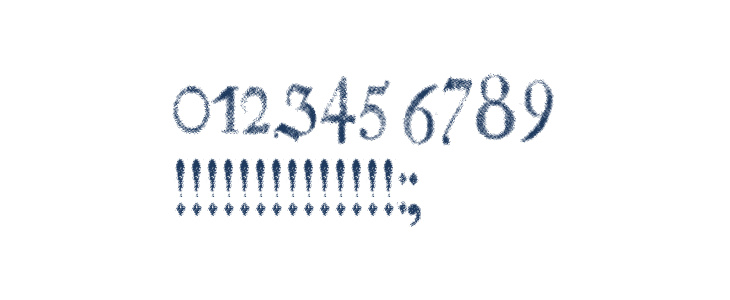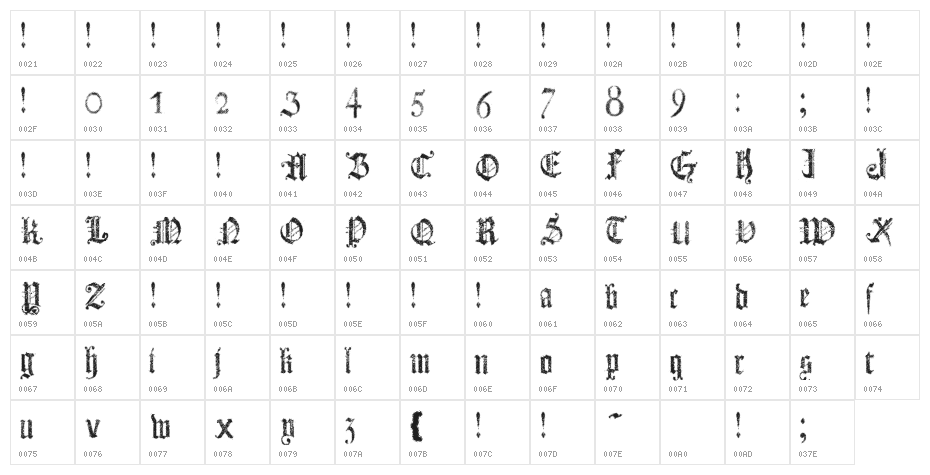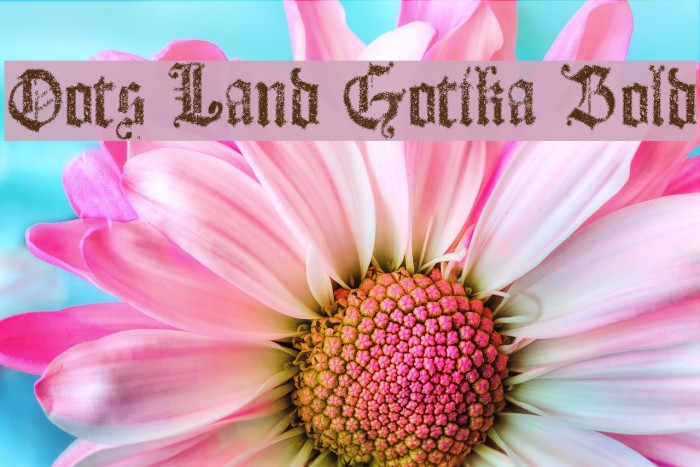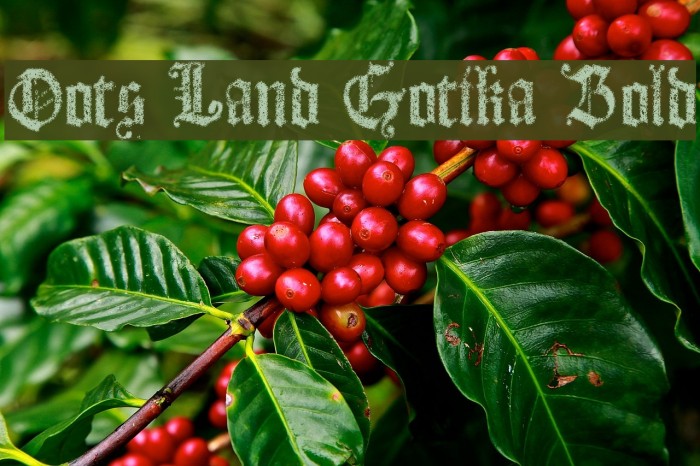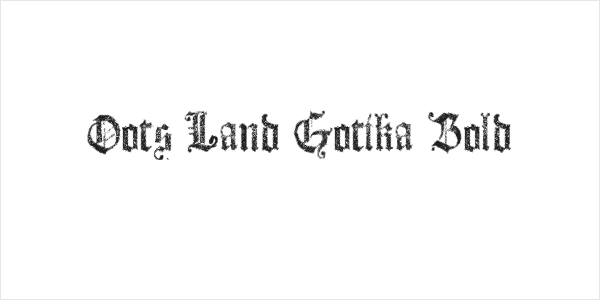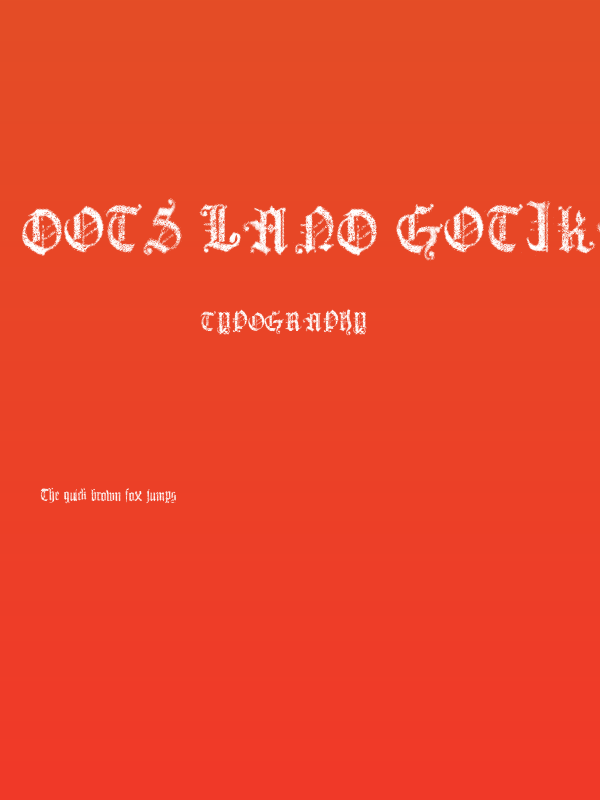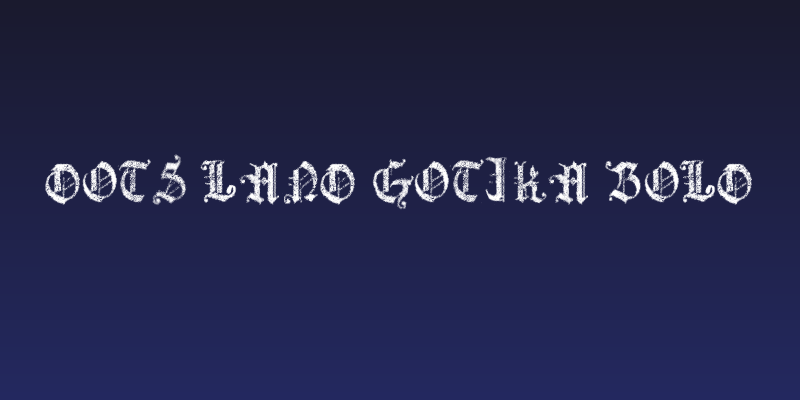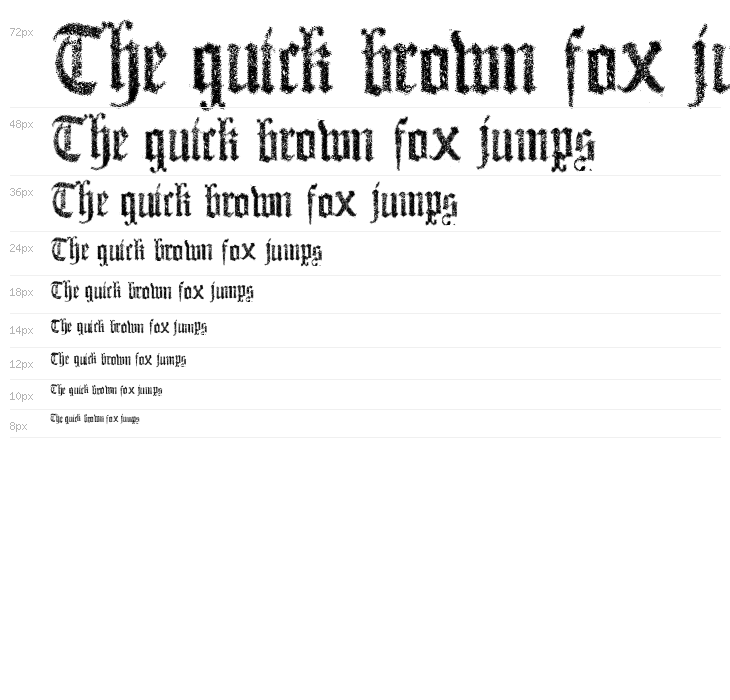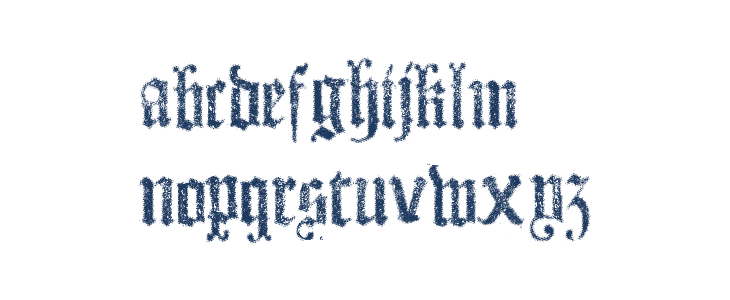
Dots Land Gotika Bold Font
Dots Land Gotika Bold Description
This font exhibits a classic blackletter style, characterized by its intricate and ornate letterforms. The strokes are bold and angular, with sharp serifs and decorative elements that give it a medieval appearance. The uppercase letters are particularly elaborate, featuring flourishes and embellishments that enhance their gothic aesthetic. The lowercase letters maintain the same level of detail, ensuring consistency throughout the typeface. The numbers and special characters are equally stylized, fitting seamlessly with the overall design. This font is ideal for projects that require a historical or traditional touch, such as invitations, certificates, or branding for vintage-themed products.